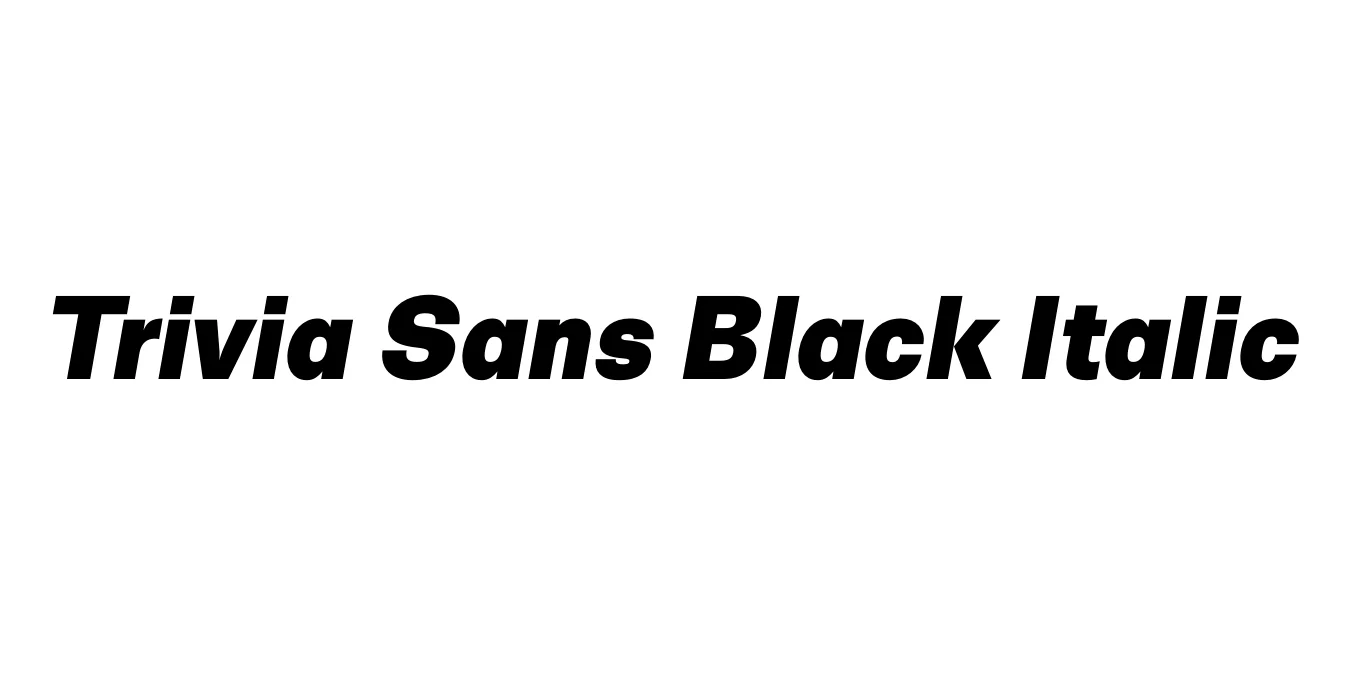
Trivia Sans Black Italic
Designed by František Štorm
Trivia Sans Black Italic is a high-impact member of the extensive Trivia Sans family, designed by the celebrated Czech typographer František Štorm. This typeface was conceived as a versatile, modern sans-serif that balances technical precision with a humanist touch. The Black Italic variant is particularly notable for its extreme weight and dynamic slant, providing a sense of urgency and authority that is difficult to ignore in professional layouts. Its construction adheres to a neo-grotesque logic while incorporating subtle calligraphic influences that prevent the heavy letterforms from feeling static.
Functioning as part of a larger typographic system, Trivia Sans was developed to work seamlessly alongside its serif counterparts, offering designers a comprehensive toolkit for complex editorial and corporate projects. The Black Italic weight is optimized for display usage, where its dense black color and sharp italicized angles create a compelling rhythmic flow. Whether used in large-scale advertising or as a striking contrast element in magazine design, this font delivers a sophisticated and contemporary aesthetic that is both functional and expressive.
Trivia Sans Black Italic Best Uses
Ideal for loud, impactful titles in magazines, posters, and web banners.
Perfect for creating strong, authoritative logos and visual identity systems.
Excellent for high-contrast marketing materials that require immediate attention.
Works well for pull quotes and section headers in sophisticated print layouts.